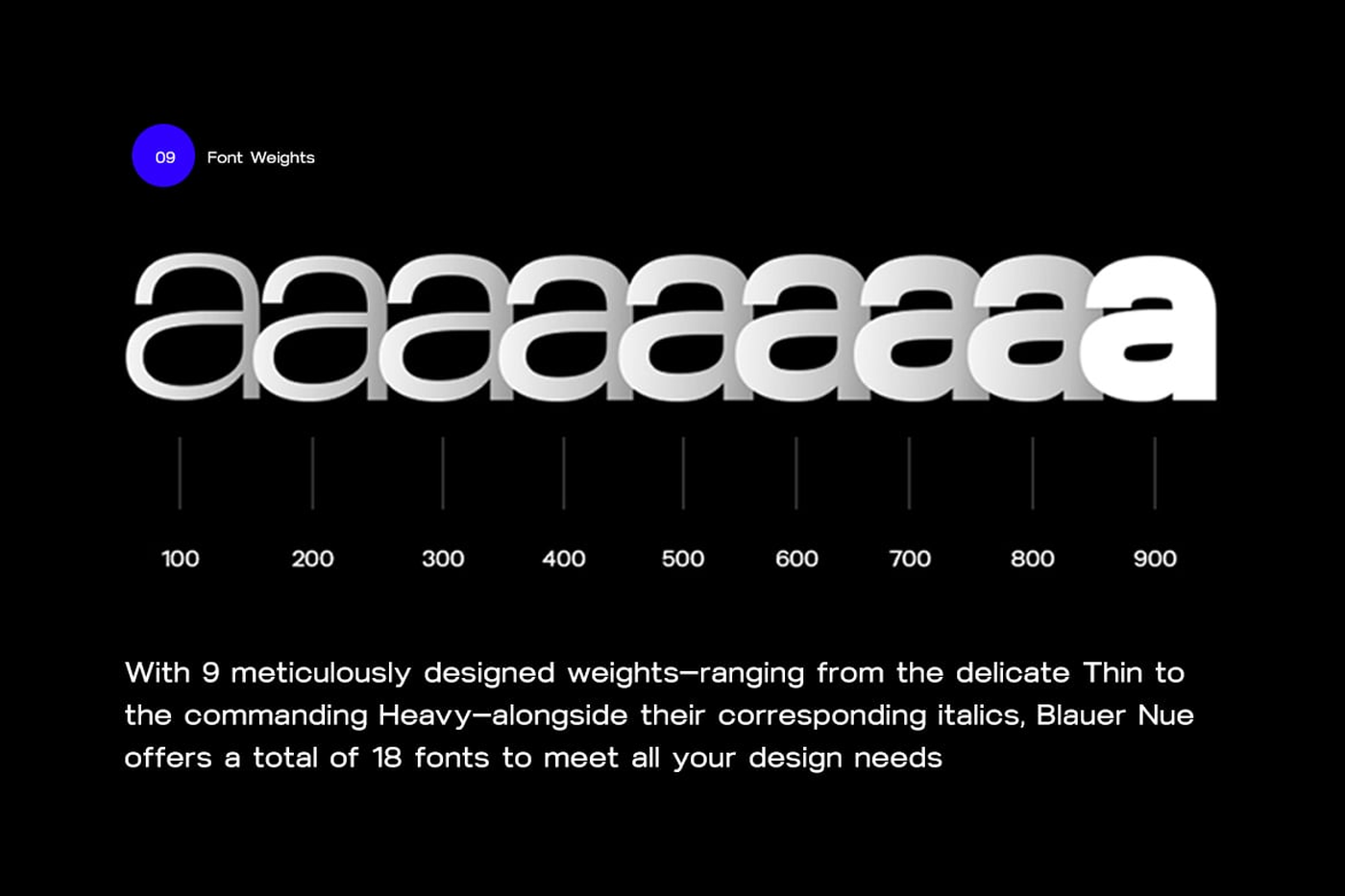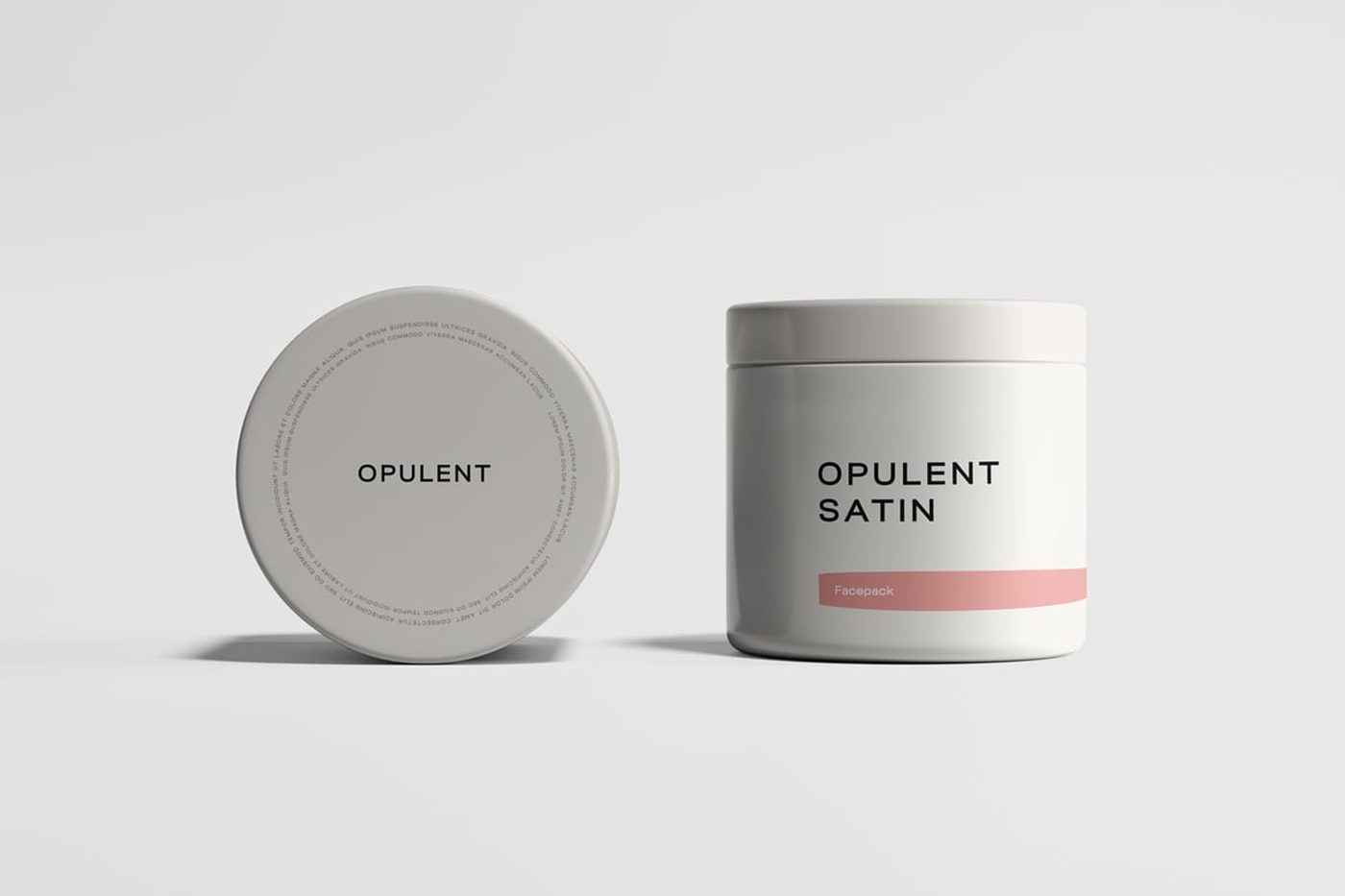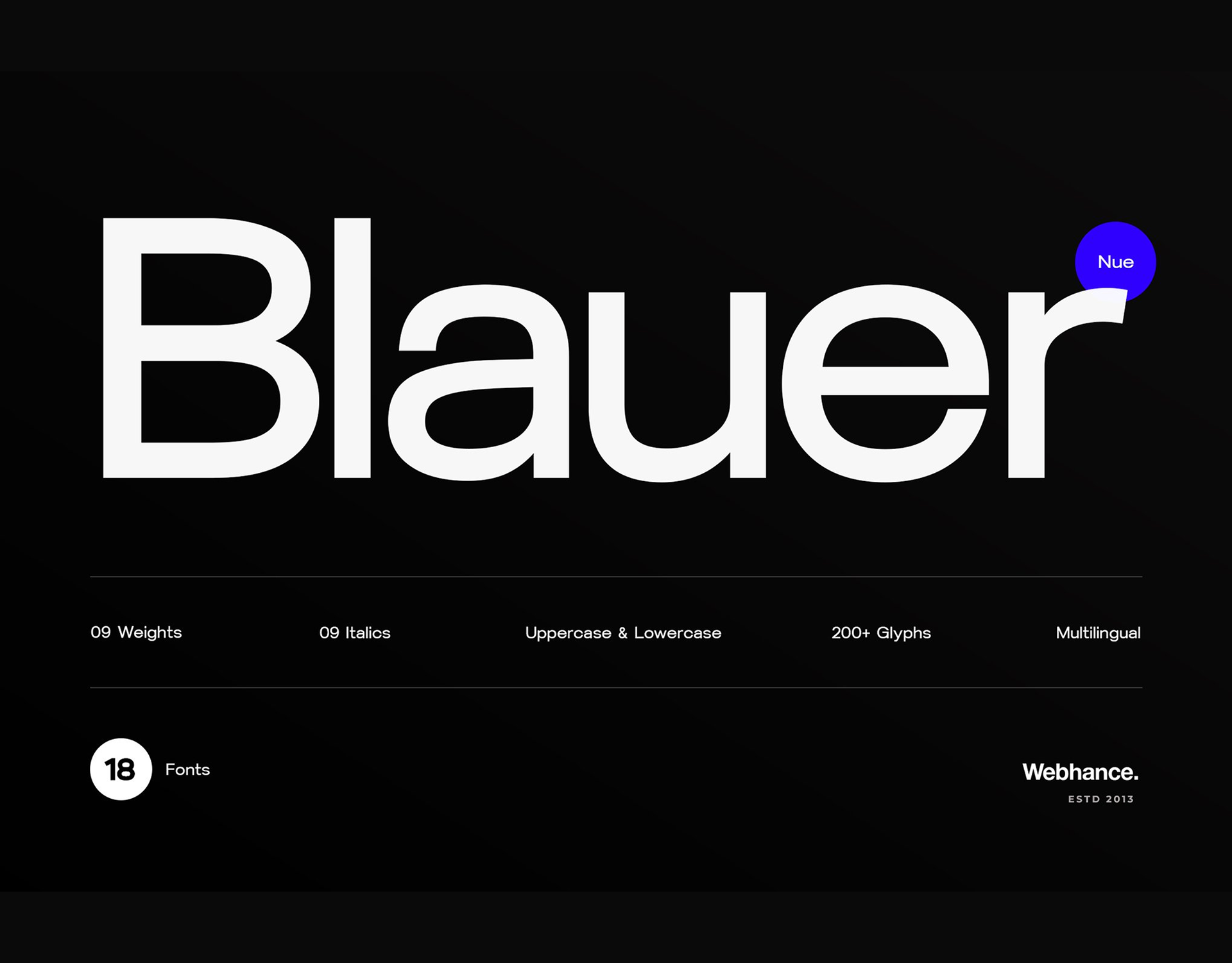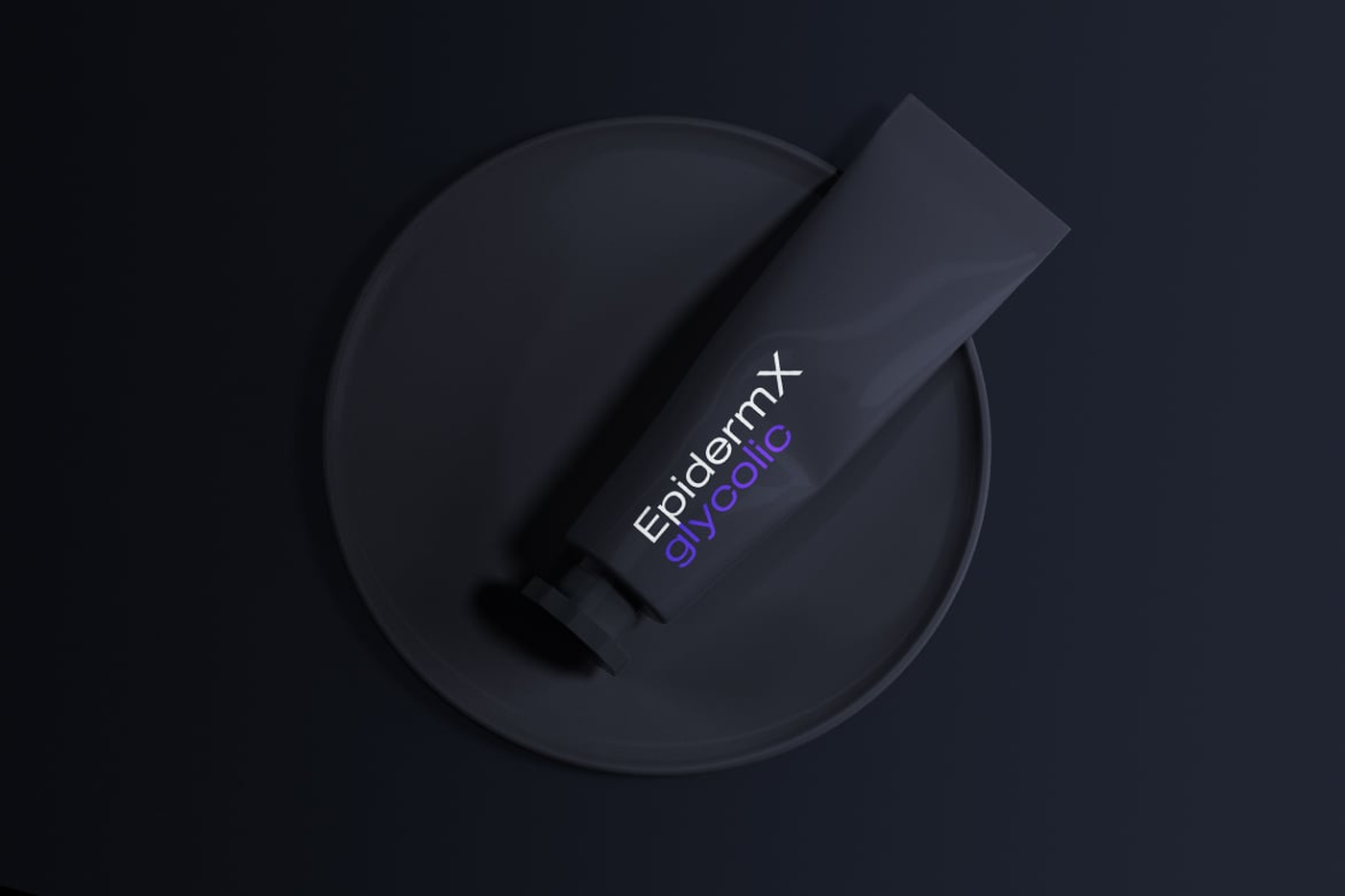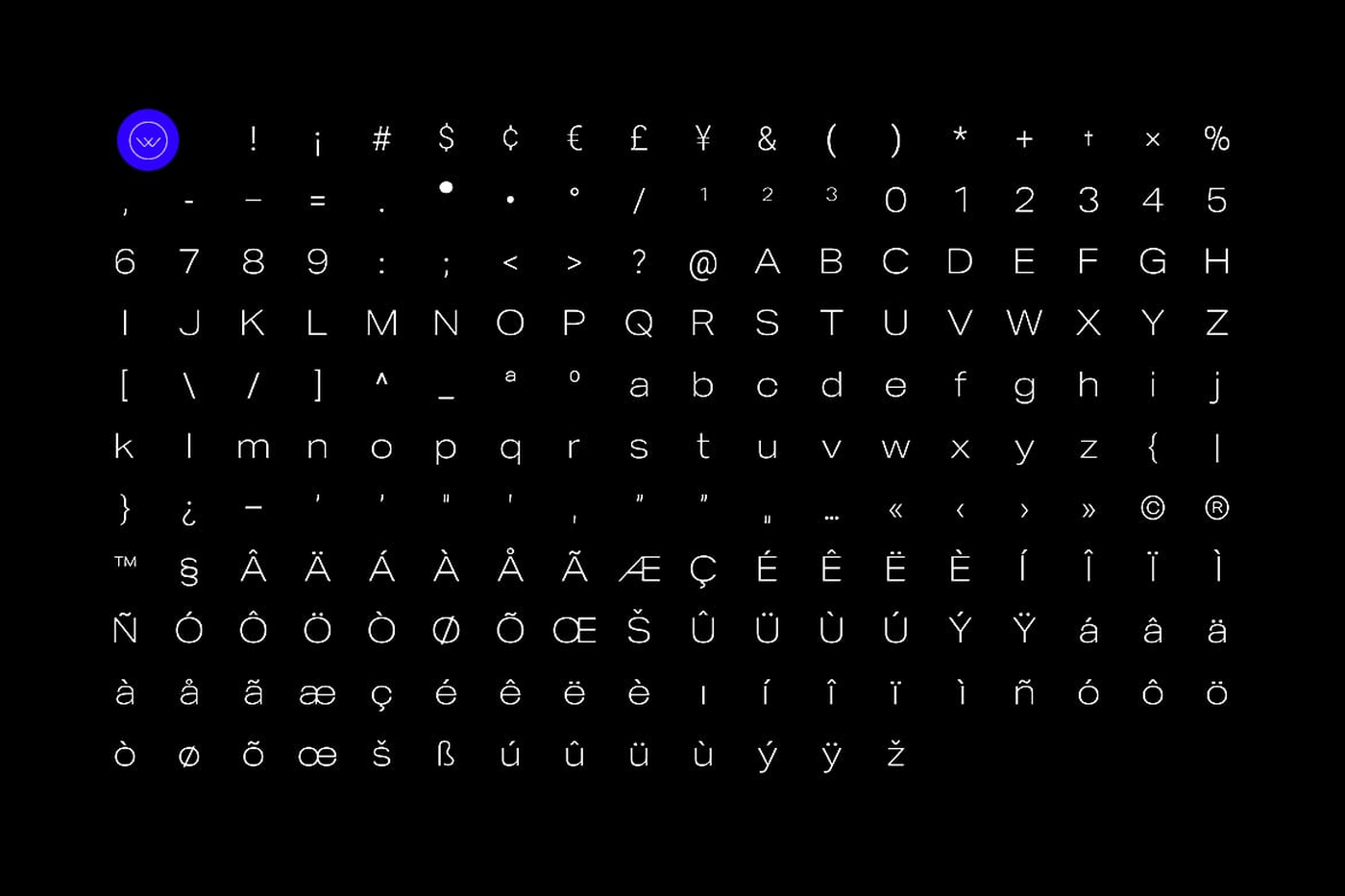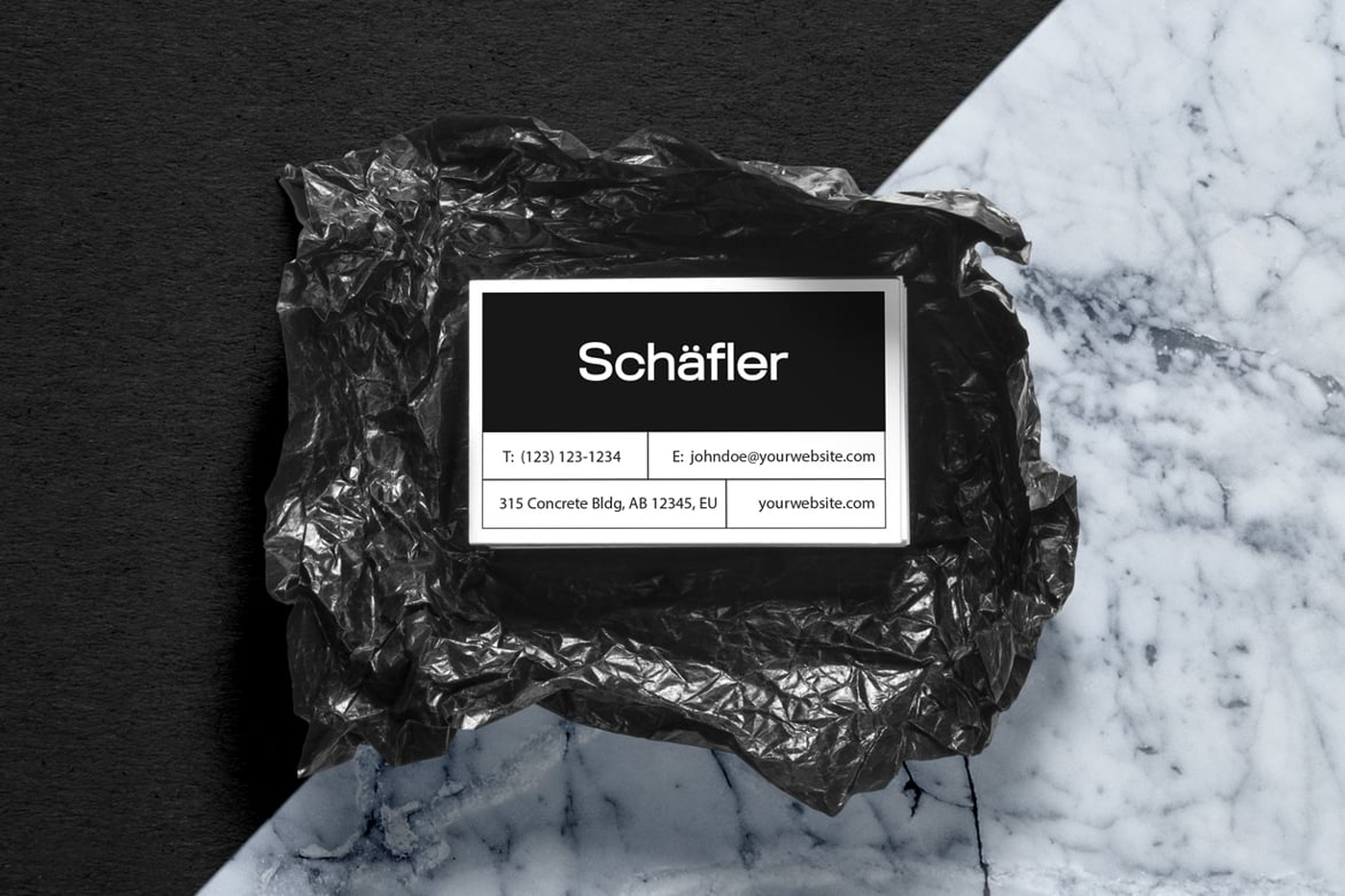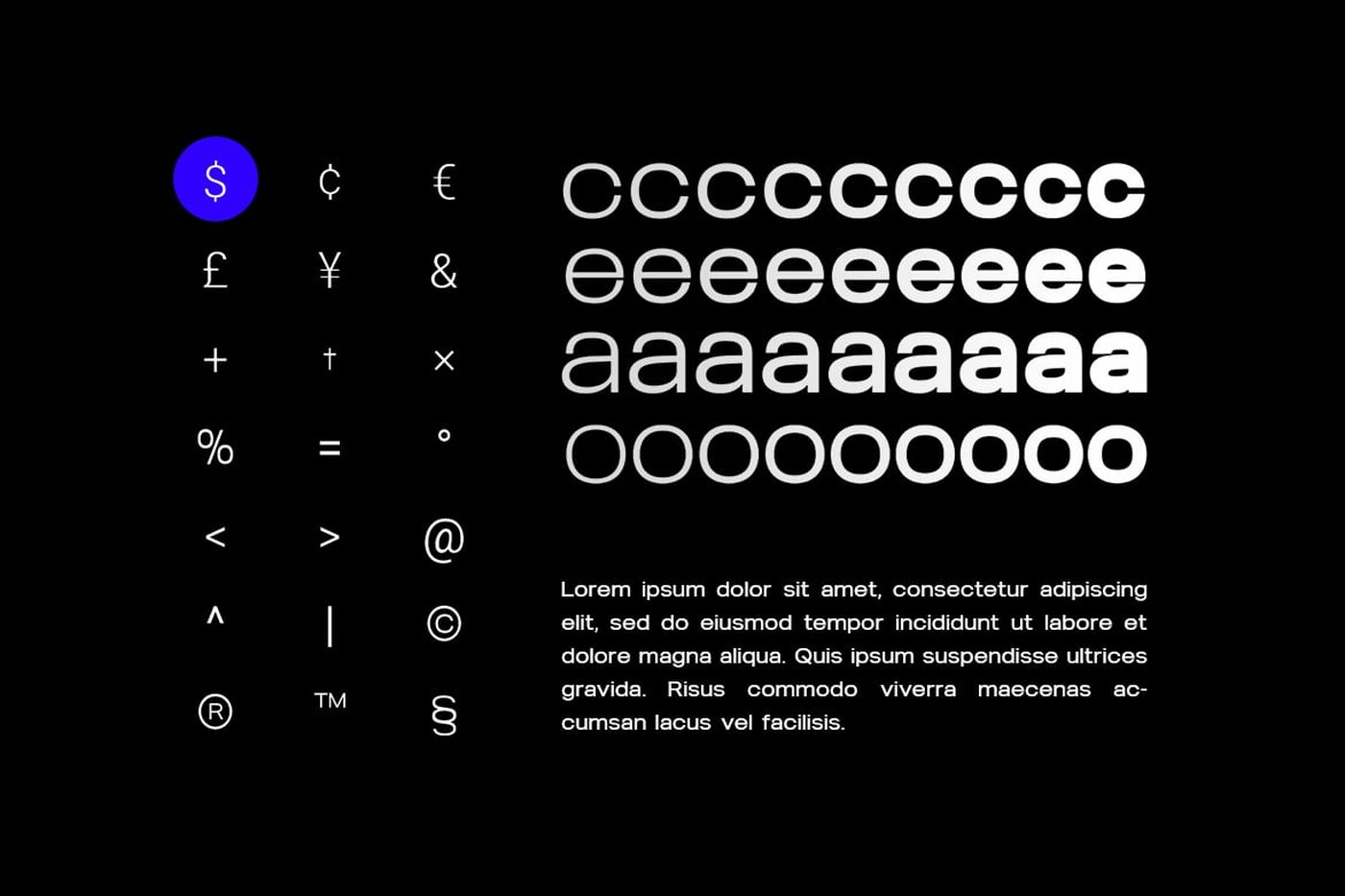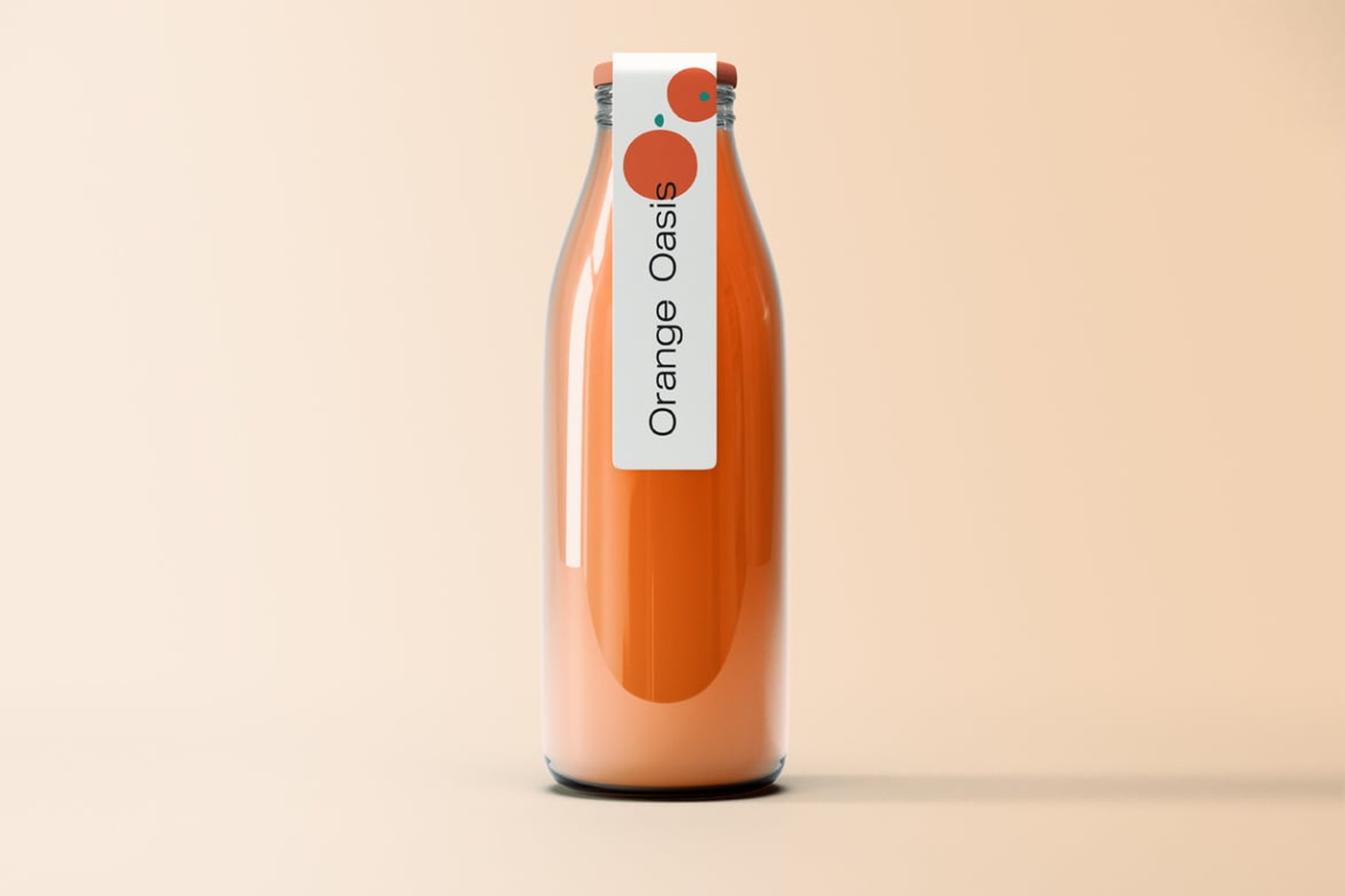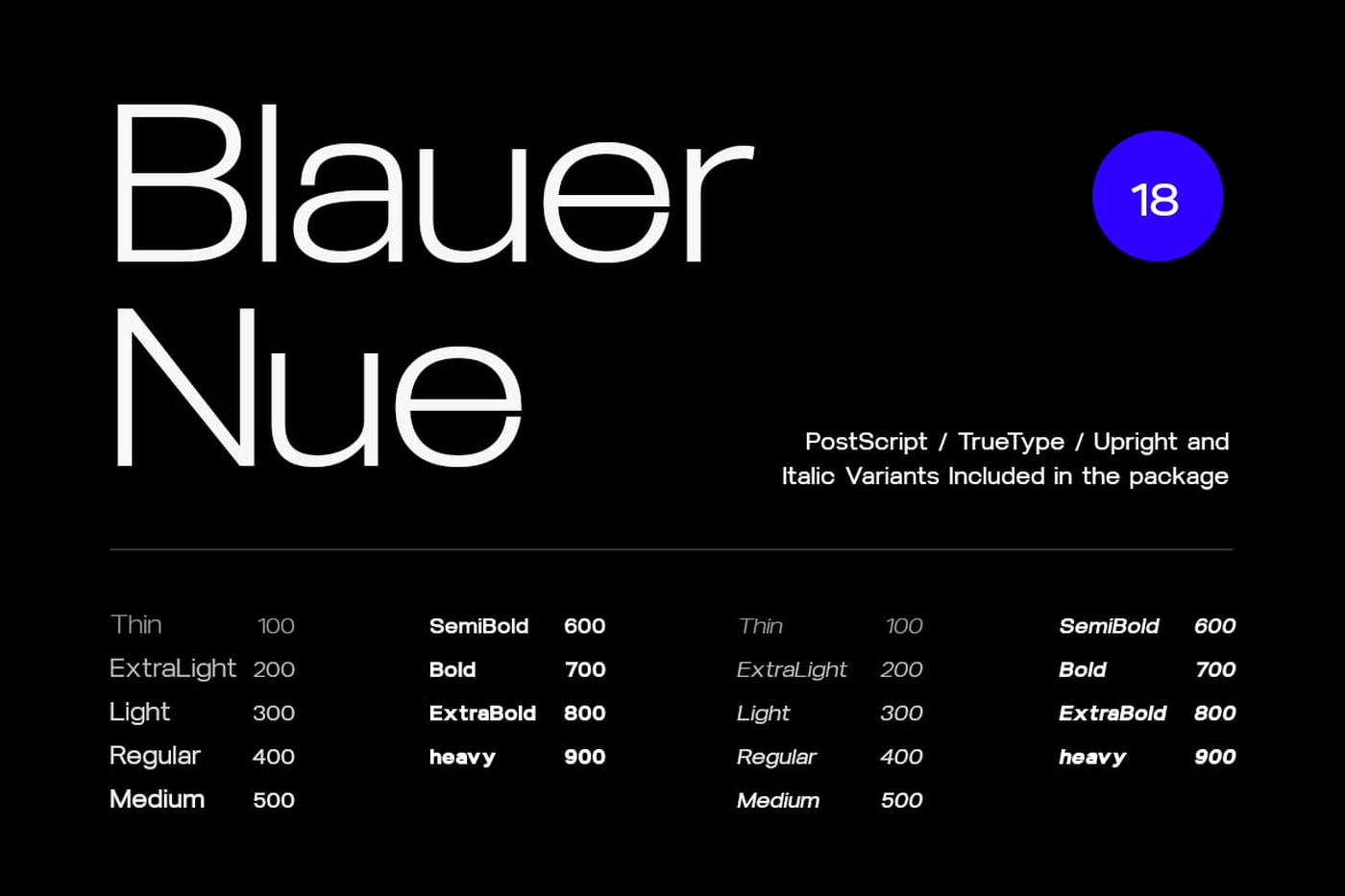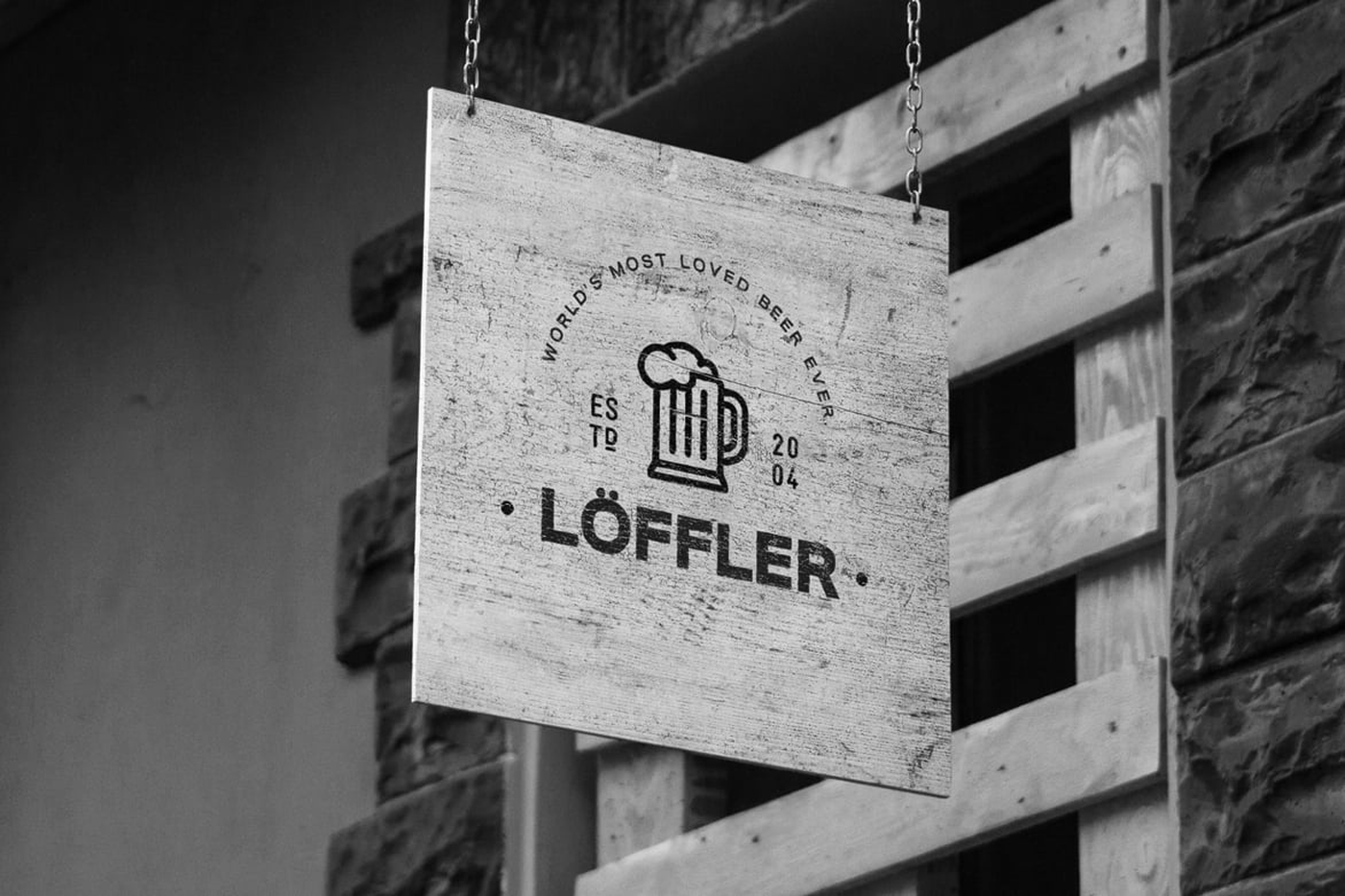
Blauer Nue - Sans Serif Font Family
Blauer Nue is a sophisticated sans-serif font family meticulously crafted to enhance your design projects with its modern aesthetic and minimalist sensibility. With 9 meticulously designed weights—ranging from the delicate Thin to the commanding Heavy—alongside their corresponding italics, Blauer Nue offers a total of 18 fonts to meet all your design needs. This font is suitable for branding, logo creation, web design, poster design, Instagram visuals, social media posters, text for reels, video infographics, YouTube thumbnails, and more. Each weight is carefully optimized for both print and digital media, ensuring seamless integration across various platforms. Elevate your designs with Blauer Nue's clean lines, impeccable legibility, and contemporary flair.
Designer: Webhance
Font: Blauer Nue